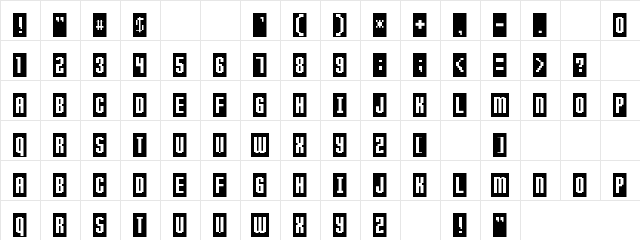
Dark Britton Regular
Design Context for Dark Britton Typeface
Dark Britton is a composed and adaptable typeface that performs quietly and consistently across a wide range of design contexts.